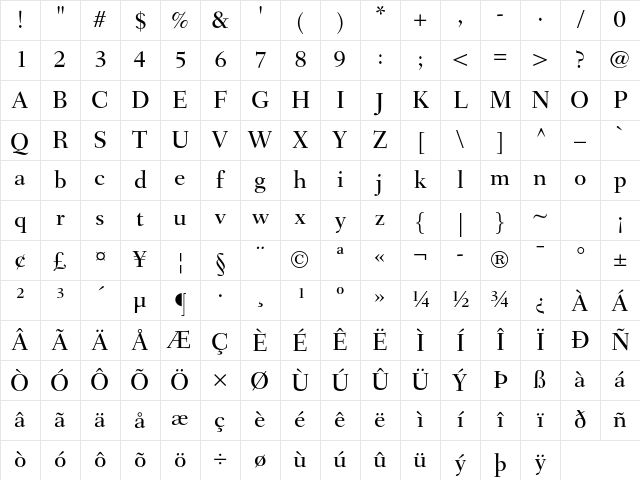
Fairfield LT Std 55 Medium
Style: 55 Medium
Designer: Alex Kaczun, Rudolph Ruzicka
Design Context for Fairfield LT Std
Fairfield LT Std is a composed and adaptable typeface that performs quietly and consistently across a wide range of design contexts. Its slender proportions lend an understated elegance to any composition.